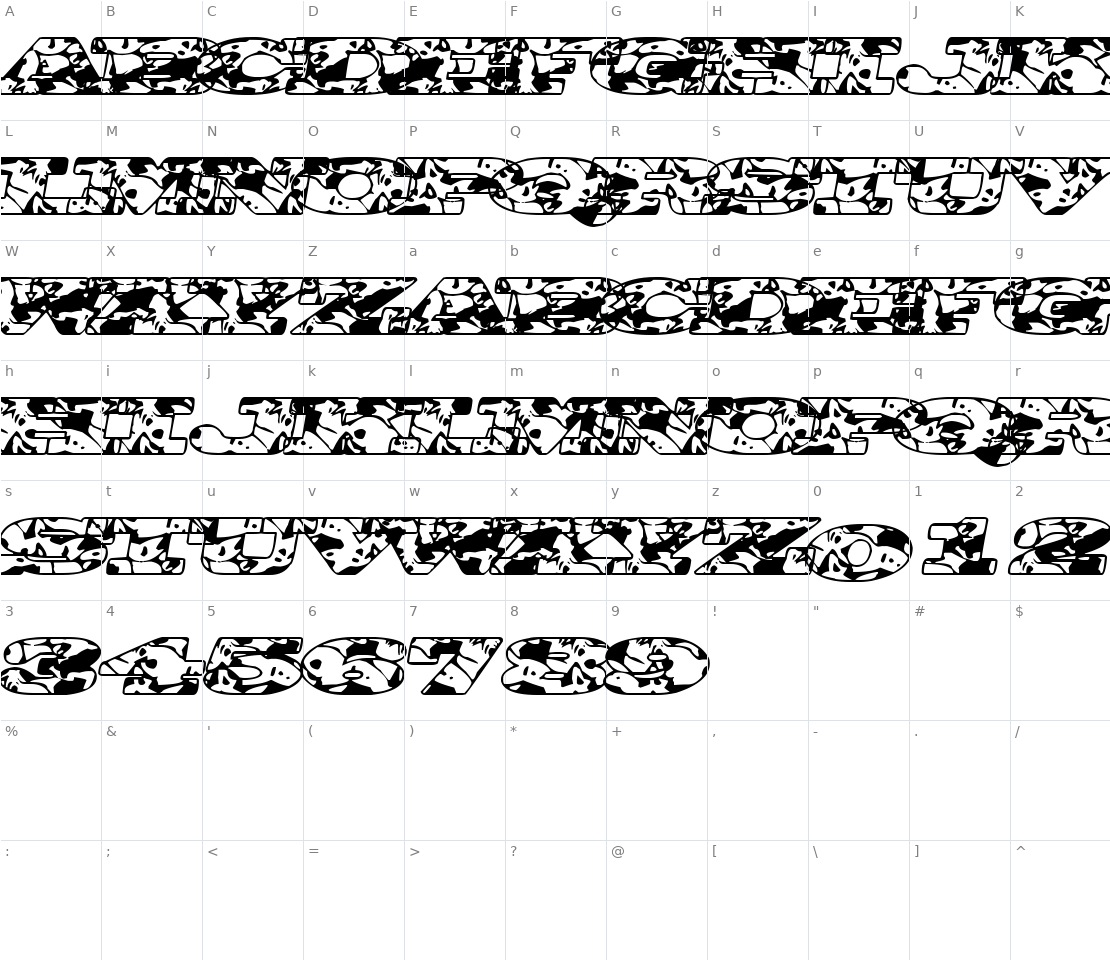
BigSpit
BigSpit is a bold, uppercase novelty face from Xerographer Fonts with a splattered, camouflage-like texture baked into every letterform. The patterned fills give it a messy, almost screen-printed quality that reads as fun and deliberately rough. It's a poster and headline font through and through, built for situations where clean type would feel too polite.